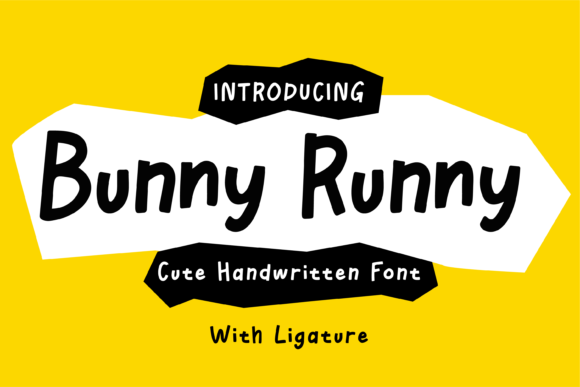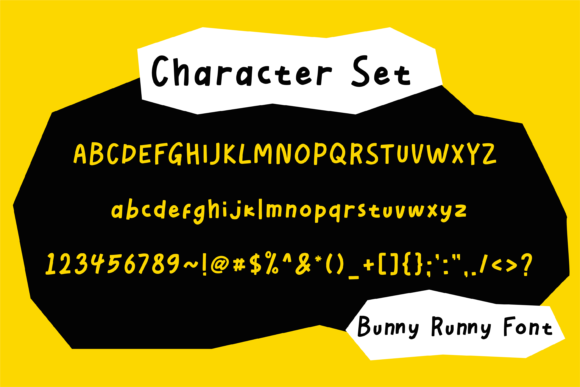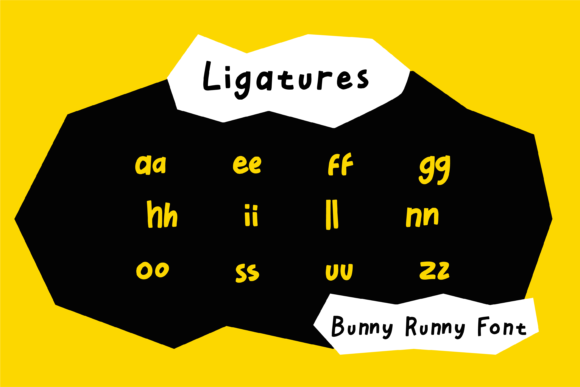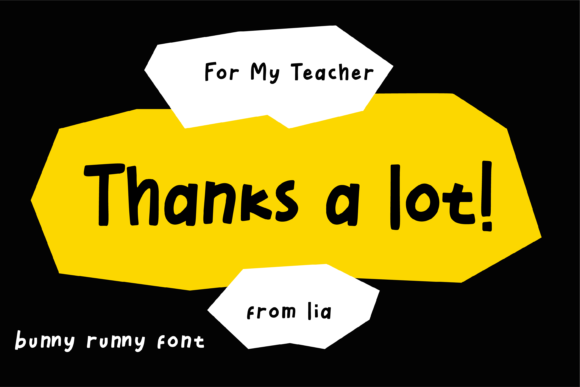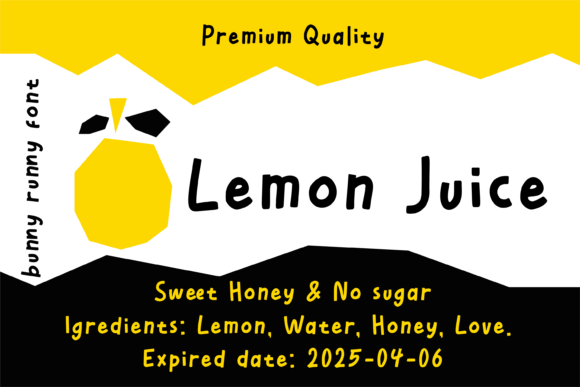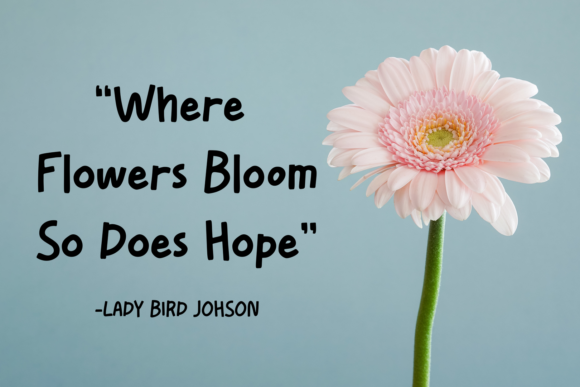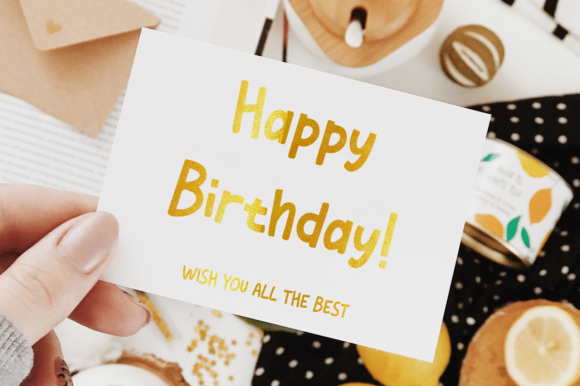
The Perfect Touch of Whimsy: Bunny Runny Font
Have you ever been rummaging through your sketchbook, looking for the perfect font to match your creative vision? You flip through pages of doodles, scribbles, and rough drafts, and suddenly, a spark of inspiration hits you. You’re in the zone, and nothing can stop you from bringing your artistic idea to life. For many designers, this is the moment when creativity flows, and the possibilities seem endless.
This is where the Bunny Runny Font comes in – a handmade font that adds a touch of whimsy and personality to your designs. With its ligatures and unique style, it’s perfect for birthday cards, stickers, planners, quotes for tumblers, logos, and anything else that needs a handwritten touch. Even though it looks like handwriting, this font is surprisingly neat and clean, making it a valuable addition to any designer’s toolkit.
Bunny Runny Font Key Features
- Font Family: Bunny Runny Font is a sans-serif font family designed for fun and playful applications.
- Unique Characteristics: Bunny Runny Font features a unique, hand-drawn style with a mix of rounded and angular shapes, giving it a distinctive and playful feel.
Bunny Runny Font Review
Overall, I think Bunny Runny Font is a sweet and playful font, perfect for children’s books or nursery decor. Here are some things that really work well: ✨
- Unique Character: The Bunny Runny Font has a distinct personality, which is sure to catch the attention of anyone who sees it.
- Flexibility: It can be used in a variety of contexts, from headings to body text, and still maintain its charm.
- Fun Illustrations: The accompanying illustrations add an extra layer of whimsy and playfulness to the font.
- Readability: In smaller sizes, the font can become difficult to read, especially for those who are not familiar with it.
- Limited Versatility: While it’s perfect for certain contexts, it may not be the best choice for more formal or serious projects.
Overall, I think Bunny Runny Font is a great addition to any designer’s toolkit, but it’s essential to use it judiciously and consider the context in which it will be used.
Bunny Runny Font is a playful and whimsical font, making it perfect for:
- Cartoon-style branding and logos.
- Handmade and crafty projects.
For the most effective use of Bunny Runny Font, keep the design simple and bold, allowing the font to take center stage.
Alternatives to “Bunny Runny Font” for Designers
Great Vibes is a beautiful, handwritten font perfect for creating a whimsical and playful atmosphere. It’s ideal for use in branding, advertising, and social media campaigns. Great Vibes has a more elegant and refined feel compared to Bunny Runny Font, which is more childlike and cartoonish.
Lobster is a fun, cursive font that’s great for adding a touch of personality to your designs. It’s perfect for use in headings, titles, and short paragraphs. Lobster has a more relaxed and casual feel compared to Bunny Runny Font, which is more energetic and playful.
Playball
Playball is a bold, handwritten font that’s perfect for creating a fun and energetic atmosphere. It’s ideal for use in sports branding, advertising, and event promotions. Playball has a more dynamic and athletic feel compared to Bunny Runny Font, which is more childlike and cartoonish.
Pacifico is a beautiful, modern script font that’s perfect for creating a sophisticated and elegant atmosphere. It’s ideal for use in branding, advertising, and luxury packaging. Pacifico has a more refined and polished feel compared to Bunny Runny Font, which is more playful and whimsical.